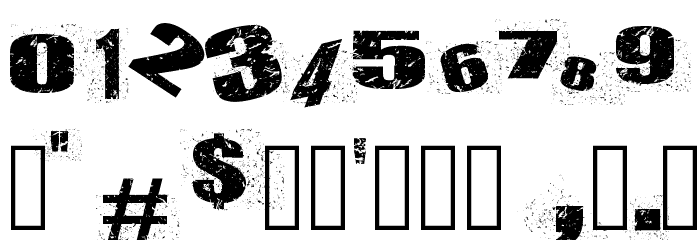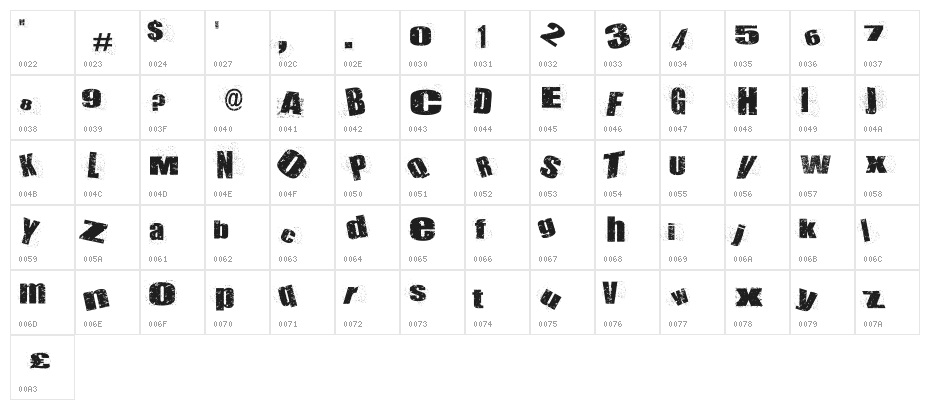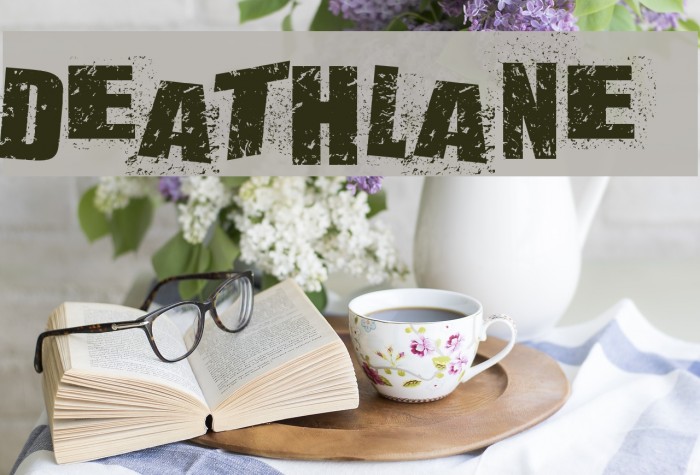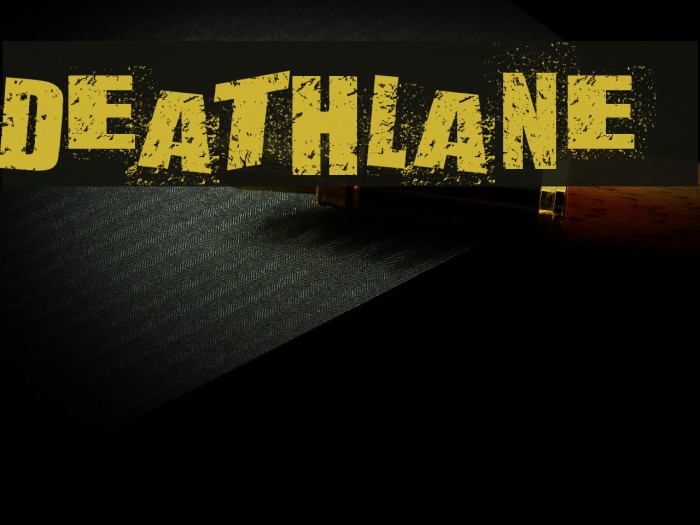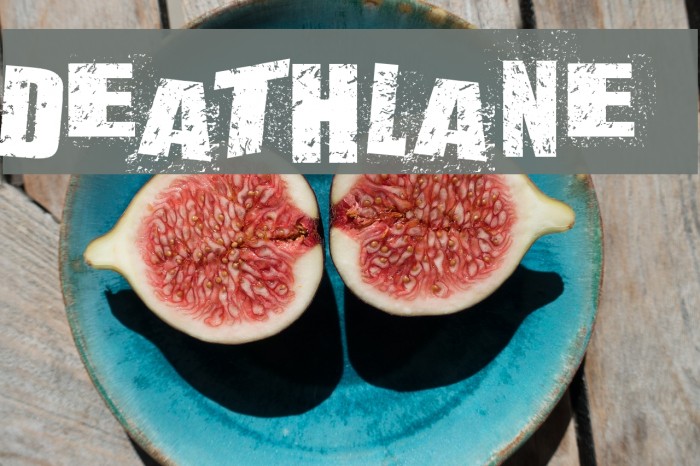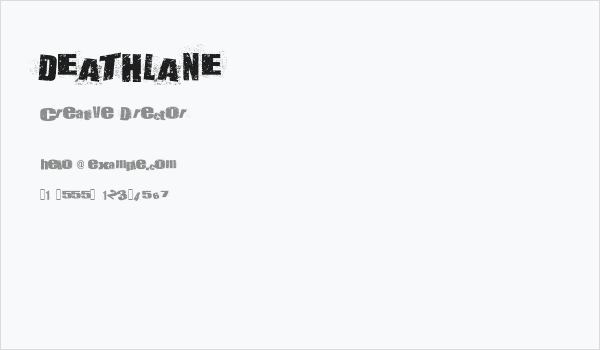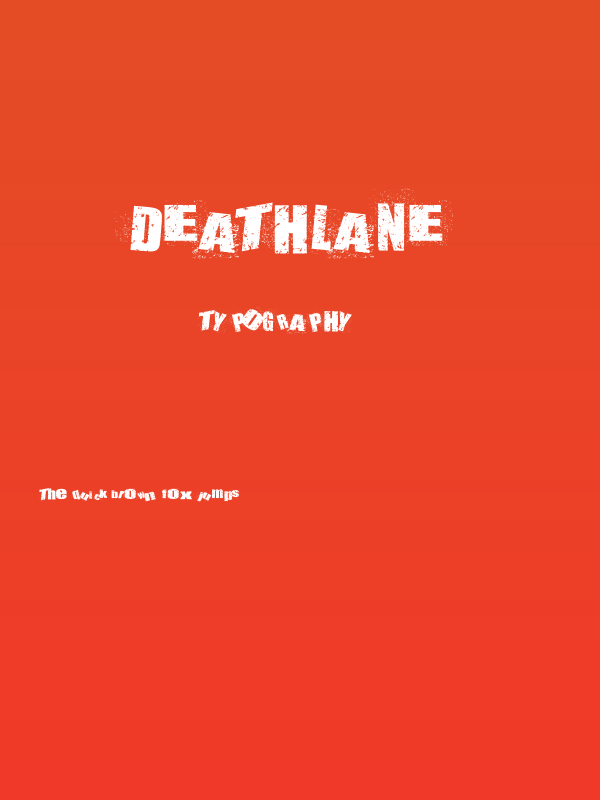
DEATHLANE Font
DEATHLANE Description
This font features a bold, distressed style with a grunge texture that gives it a rugged and edgy appearance. The characters are heavily textured, appearing as if they have been eroded or weathered over time. This adds a sense of depth and character to the font, making it stand out in any design. The uppercase and lowercase letters maintain a consistent style, with each character uniquely distressed, adding to the overall chaotic and raw aesthetic. The numbers and special characters follow the same design principles, ensuring a cohesive look across all elements.
| Overall Style | Grunge, Edgy, Distressed |
| Use Case | Headlines, Posters, Album Covers |
| Proposed Projects | Ideal for music album covers, posters, urban-themed designs, and any project requiring a gritty, rebellious look. |